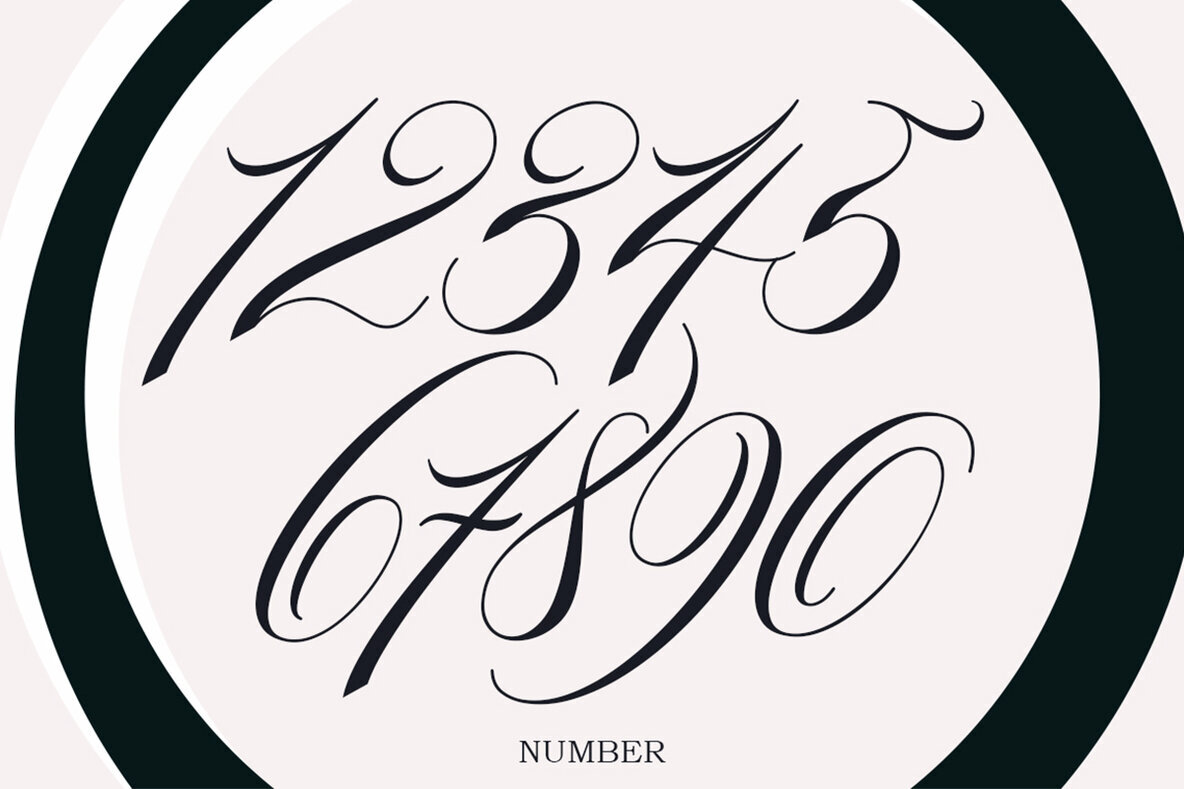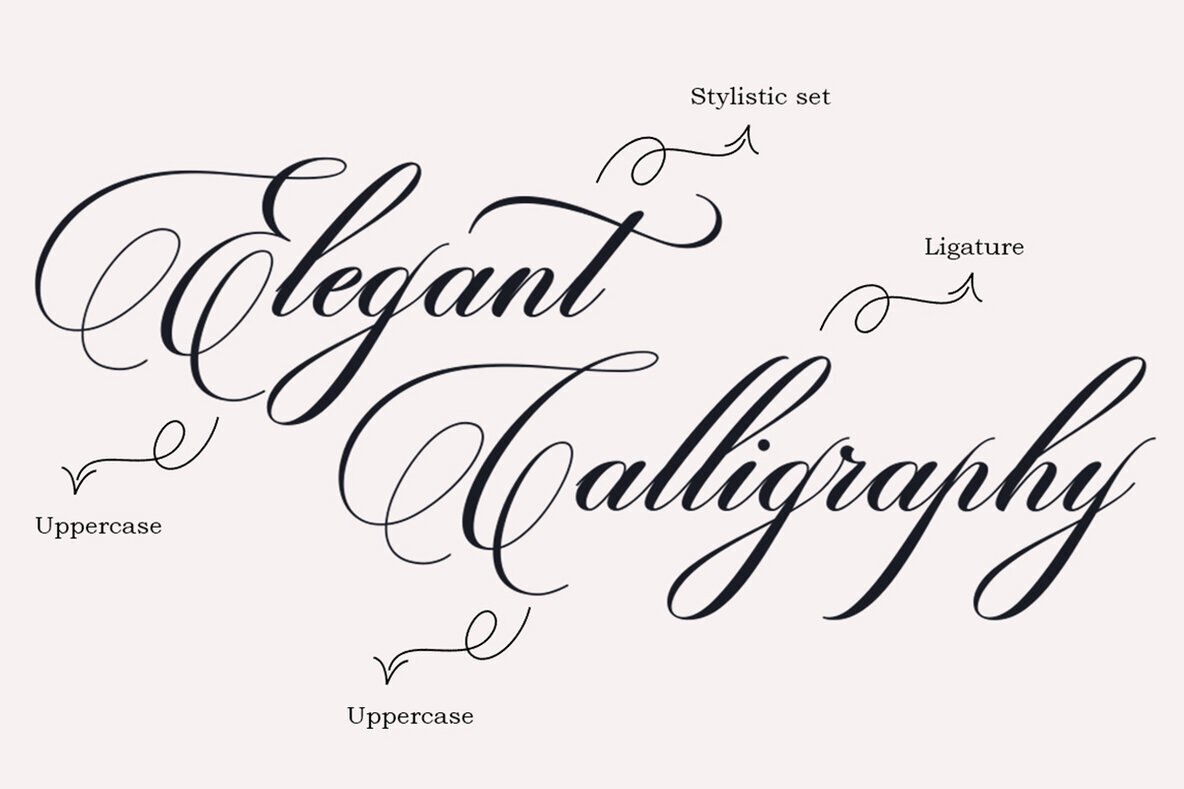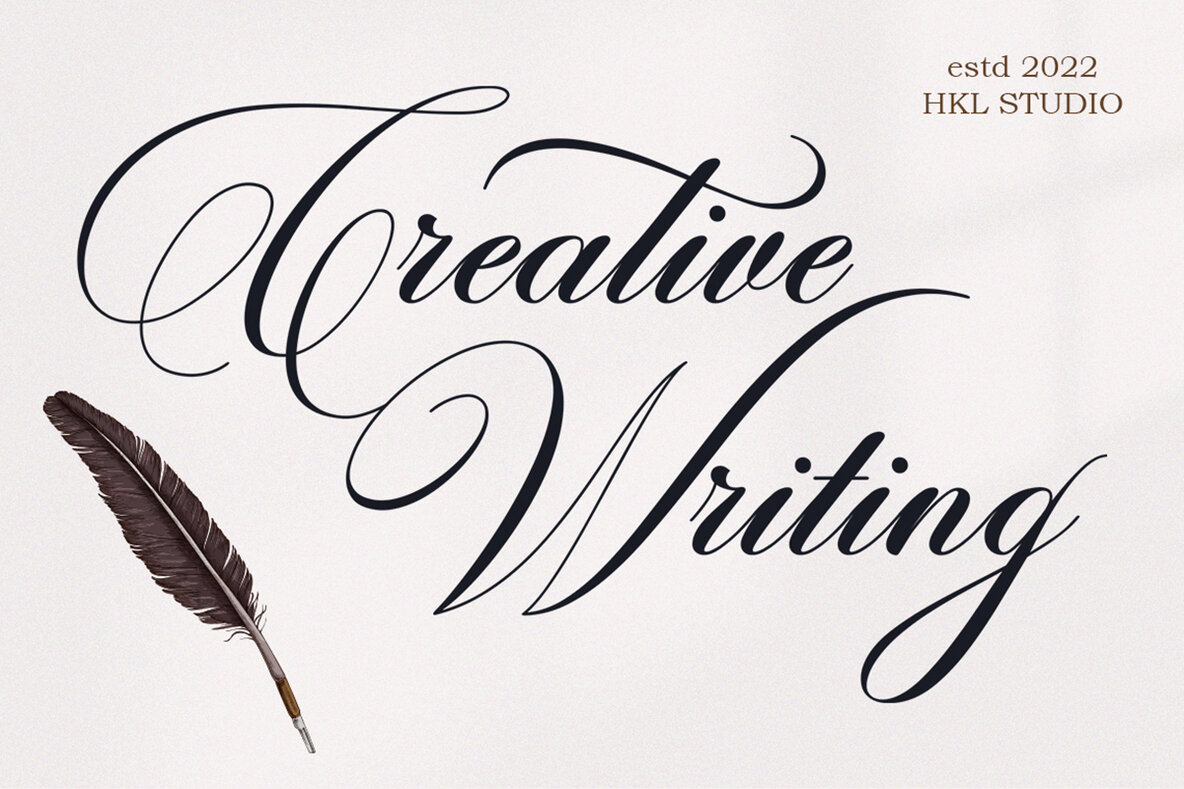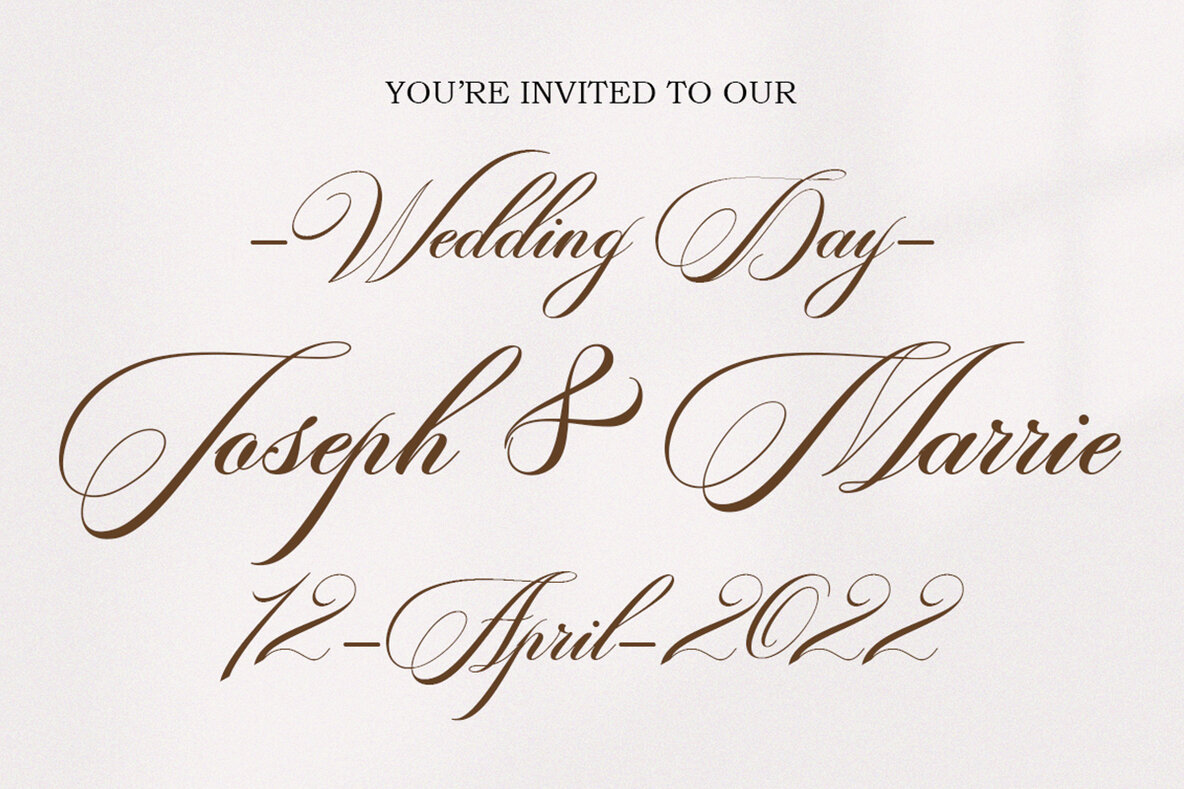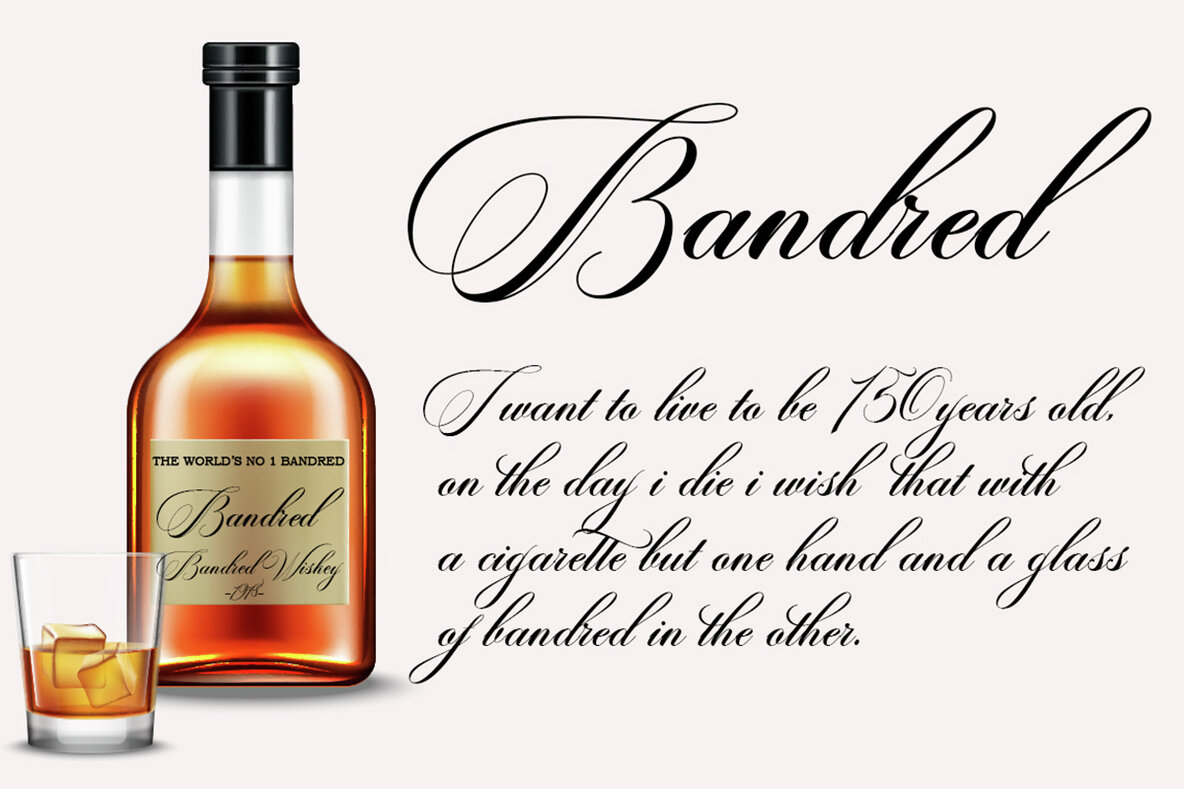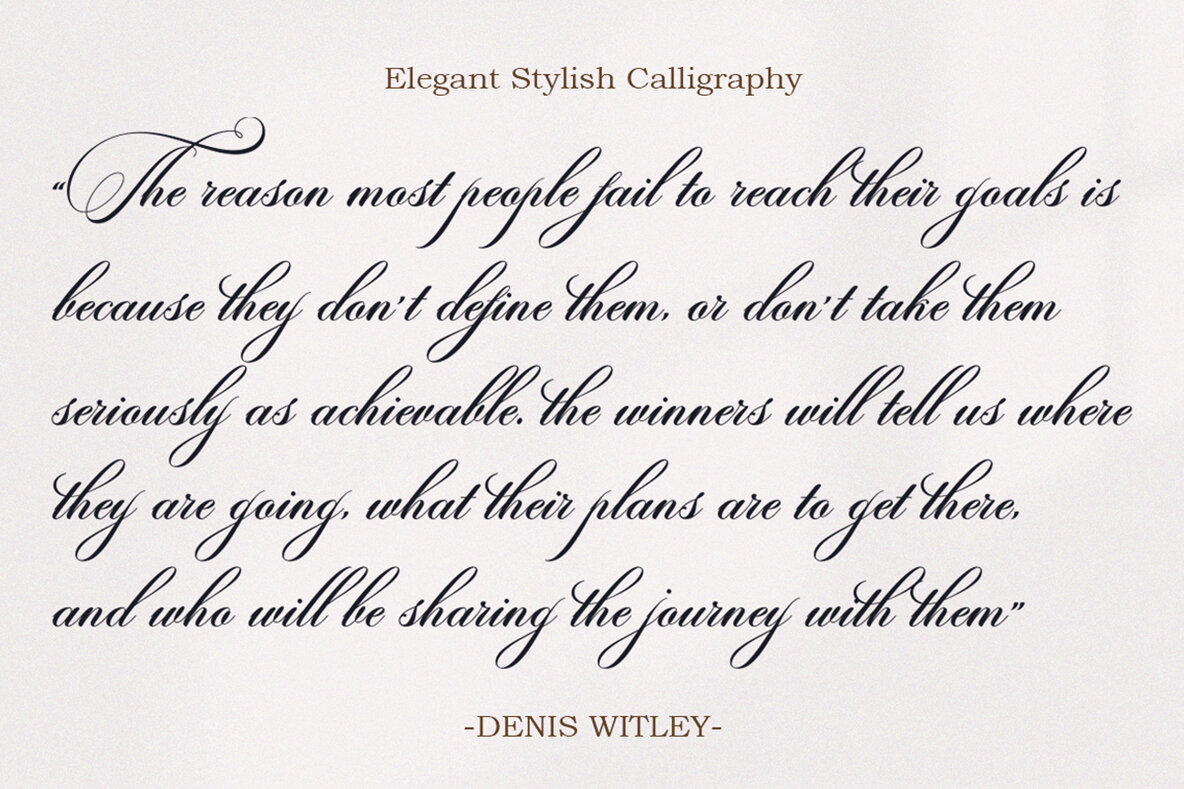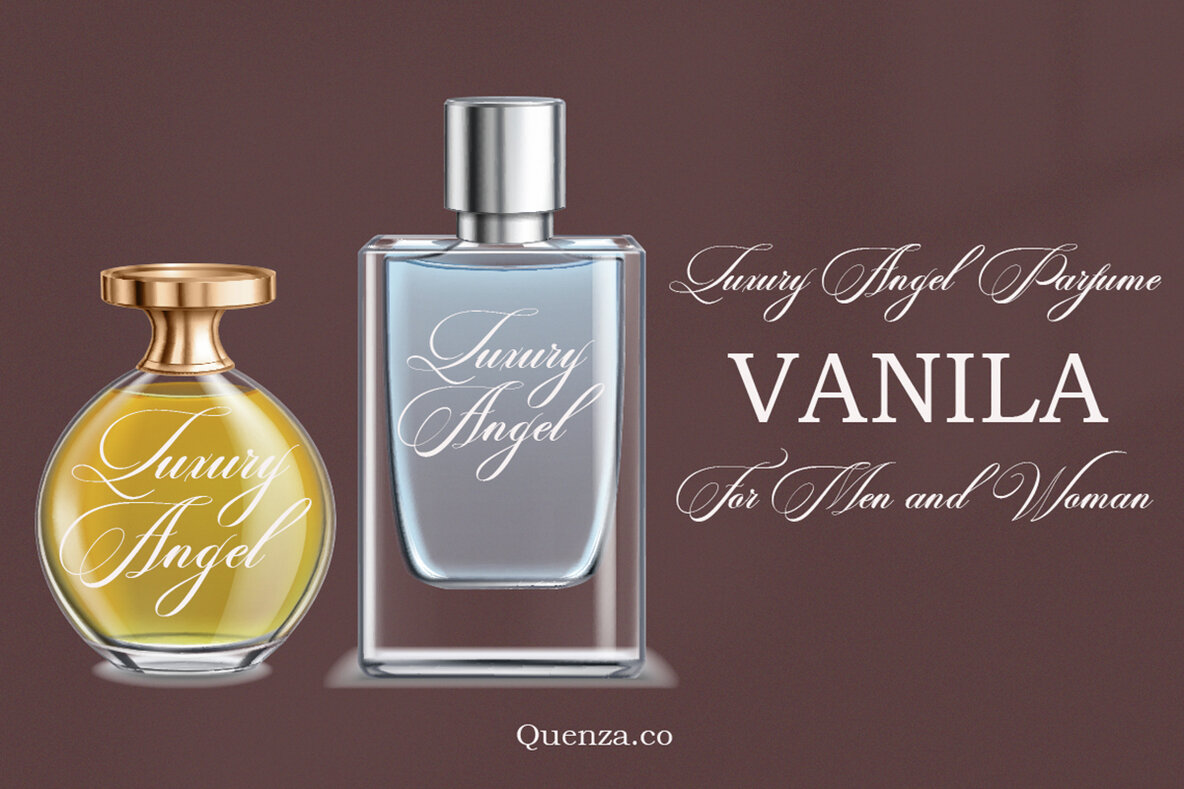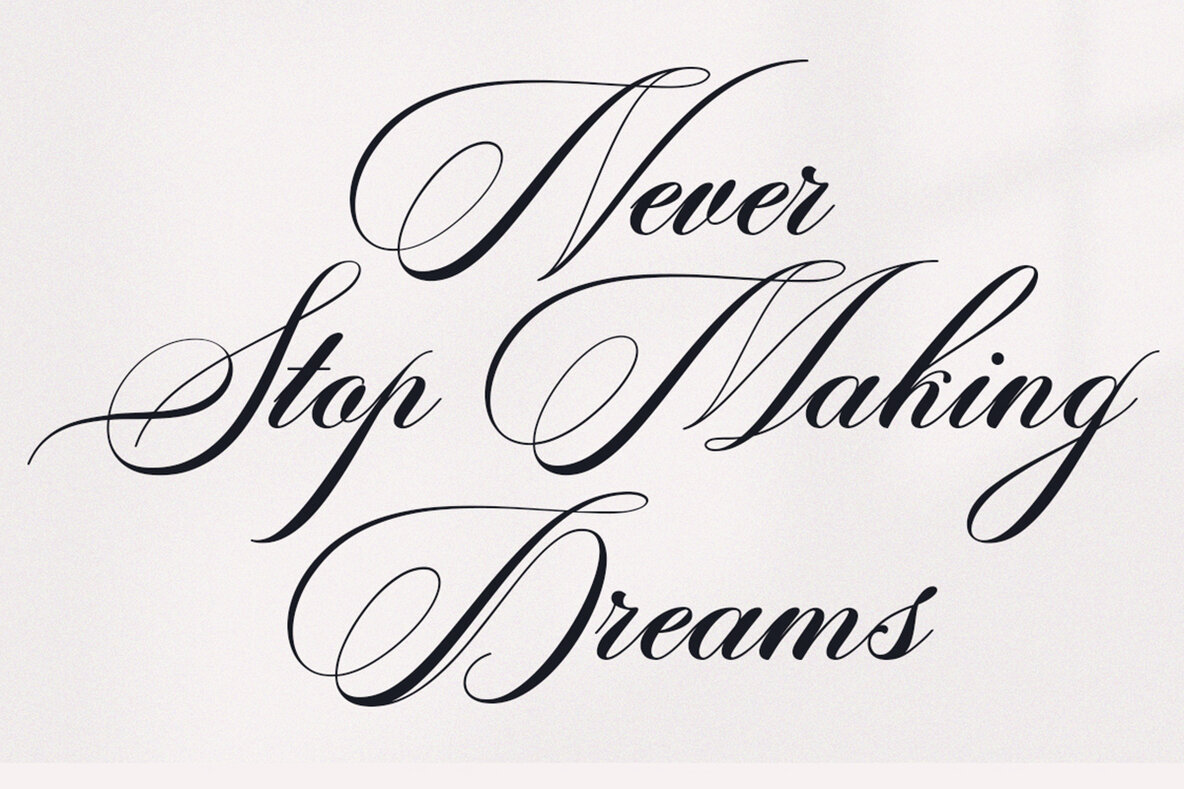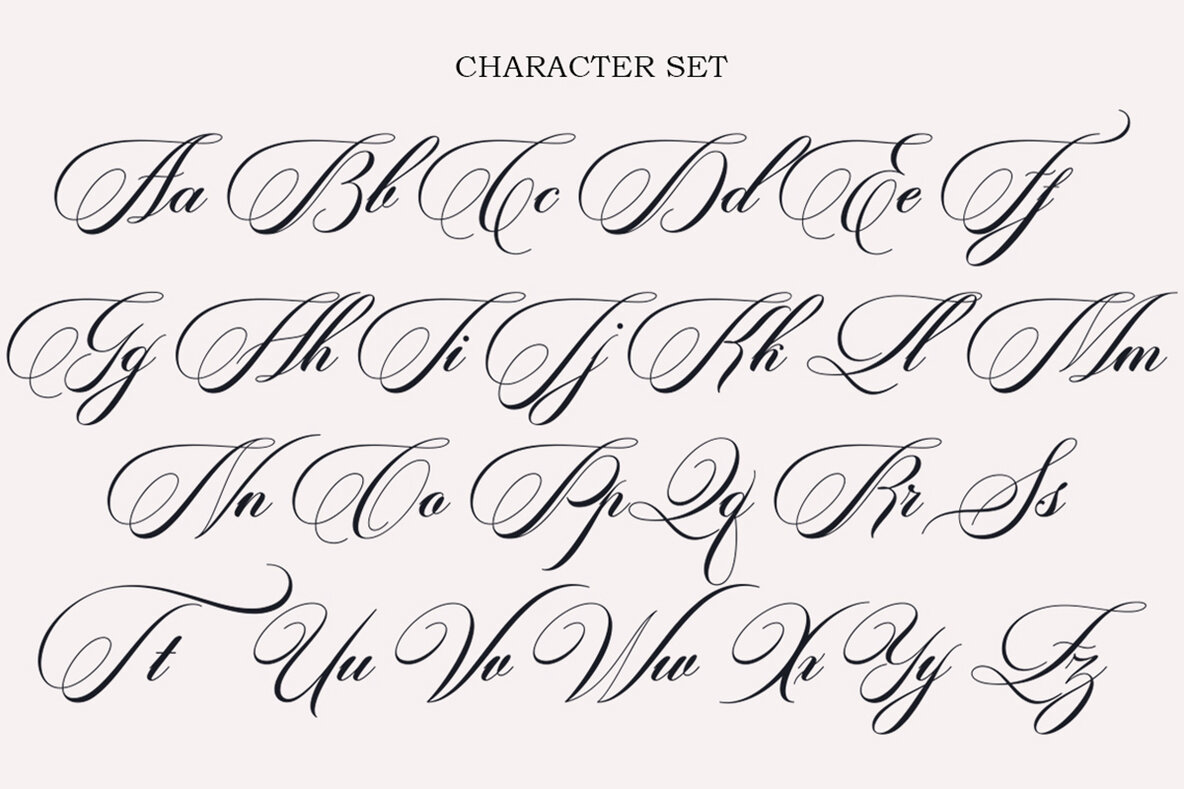
Artistic Script Pro Font
Artistic Script Regular
Artistic Script Pro is a calligraphy script font that comes with exquisite change characters, a kind of classic decorative copper script with a modern twist, designed with great detail to bring out stylish elegance. Artistic Script Pro appeals as a typeface that is smooth, clean, feminine, sensual, glamorous, simple and very easy to read, luxurious typeface. The classic style is very suitable to be applied in various formal forms such as invitations, labels, restaurant menus, logos, fashion, make up, stationery, novels, magazines, books, greeting / wedding cards, packaging, labels or any kind of advertising purposes. I highly recommend using a program that supports OpenType features and the Glyphs panel such as Adobe Illustrator, Adobe Photoshop CC, Adobe InDesign, or CorelDraw, so that you can view and access all variations of Glyphs. Artistic Script Pro is coded with Unicode PUA, which allows full access to all additional characters without having special design software. Mac users can use Font Book, and Windows users can use Character Map to view and copy any of the additional characters to paste into your favorite text editor/app.